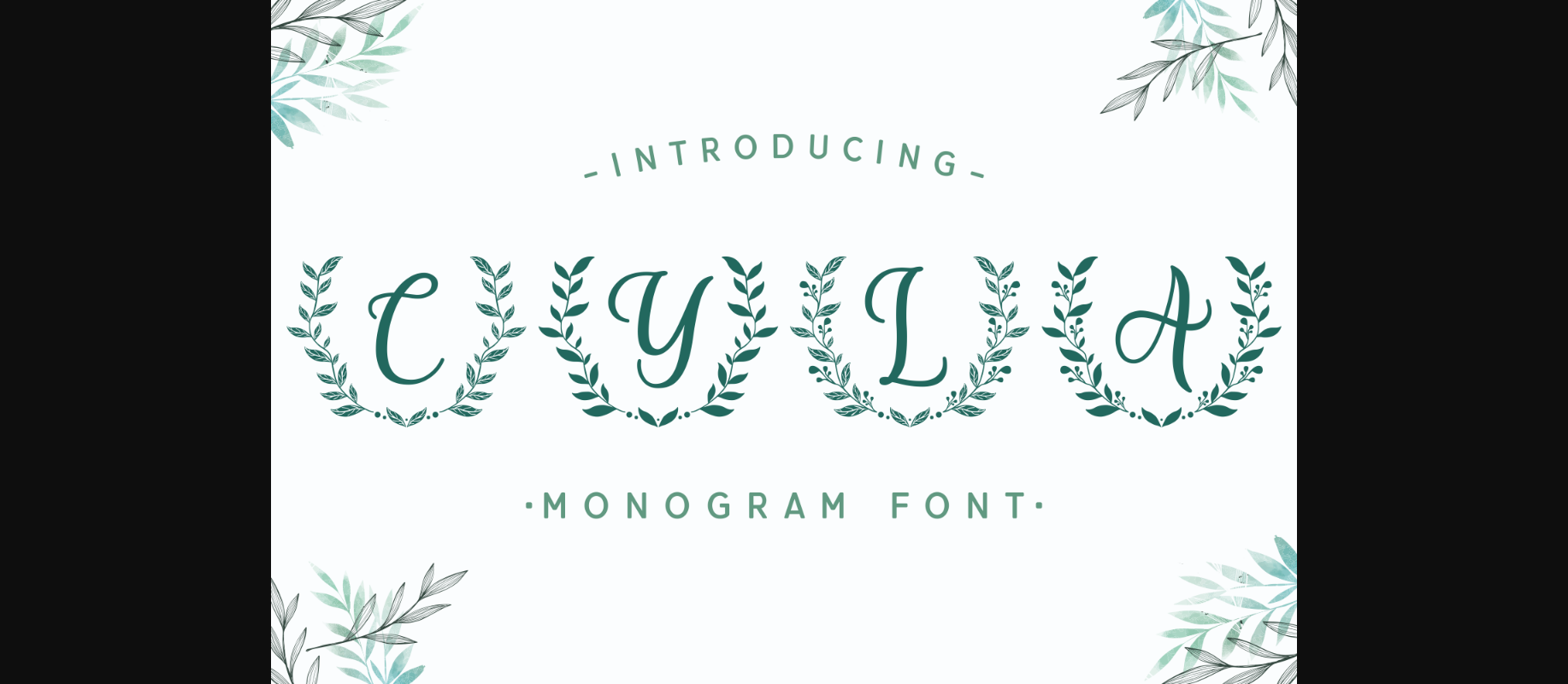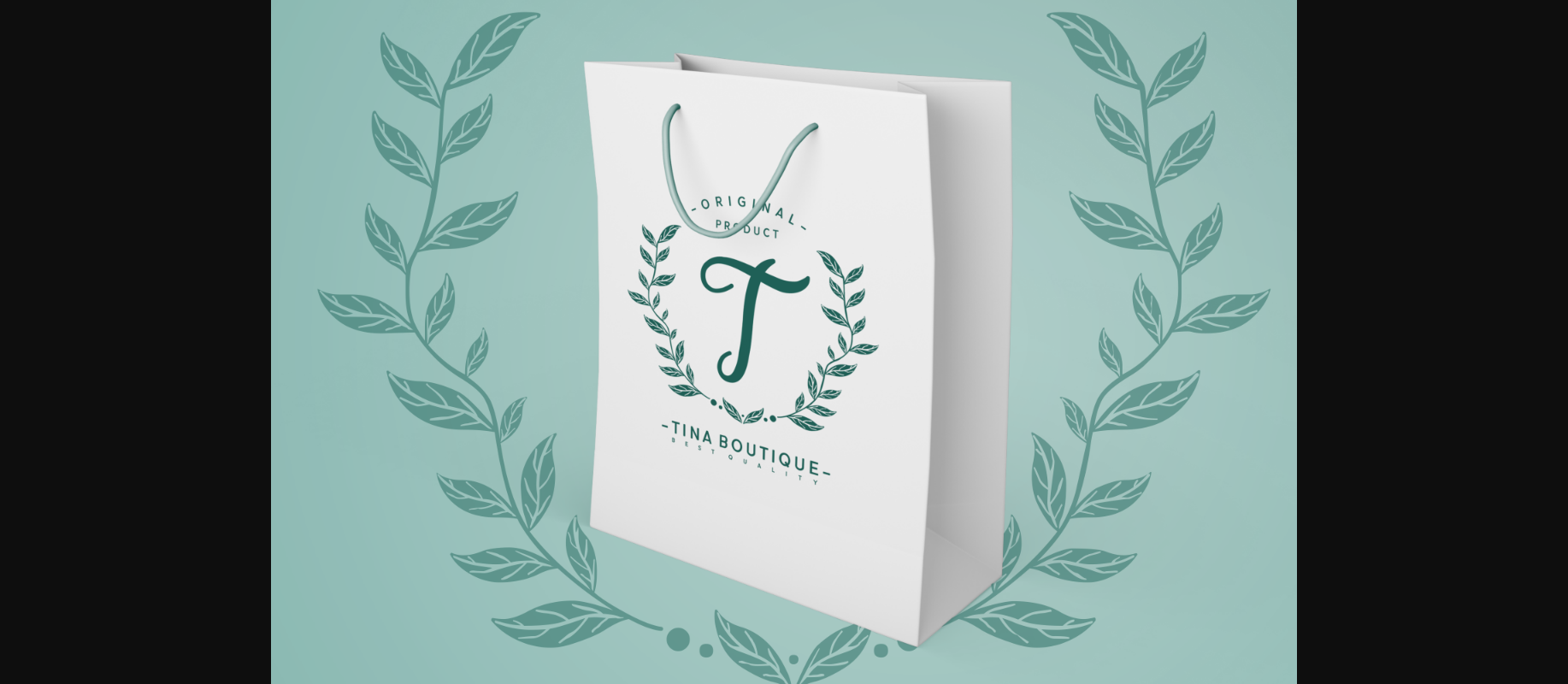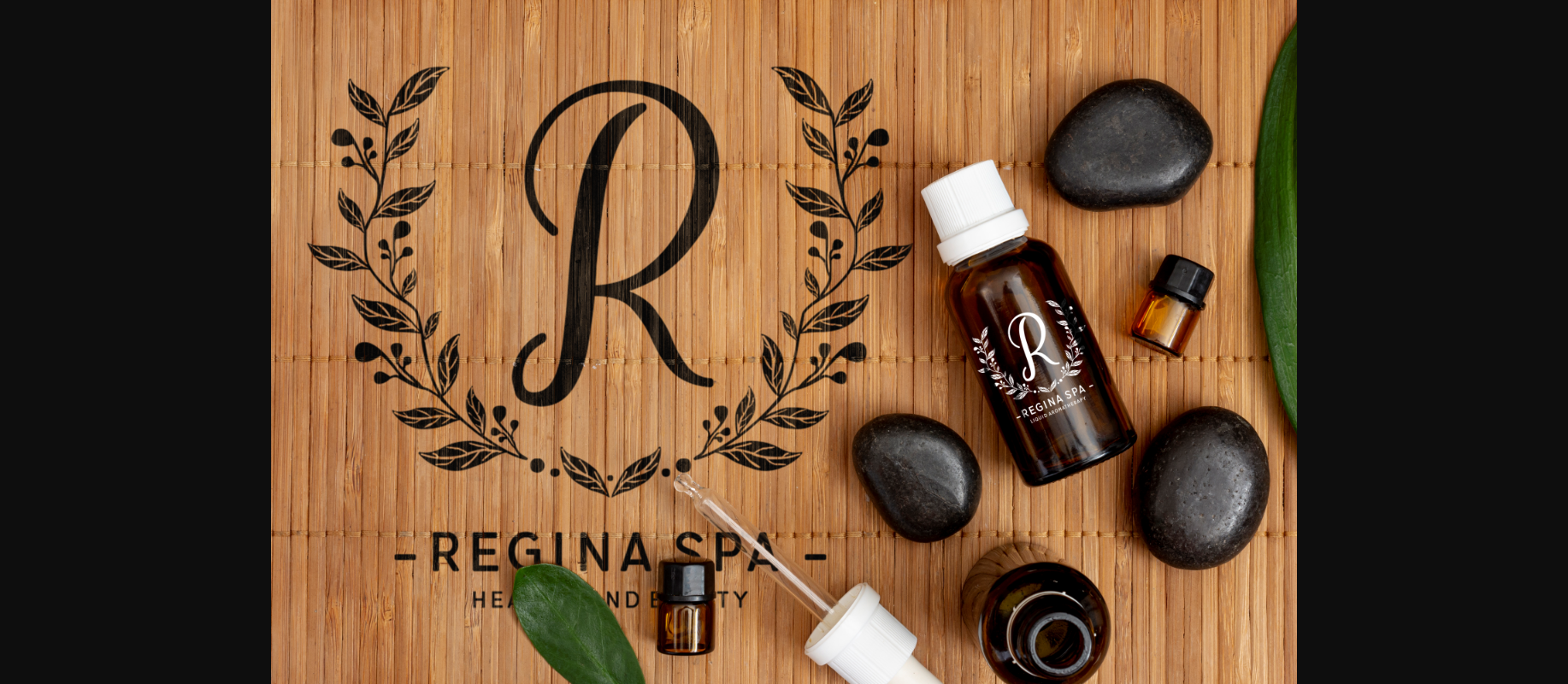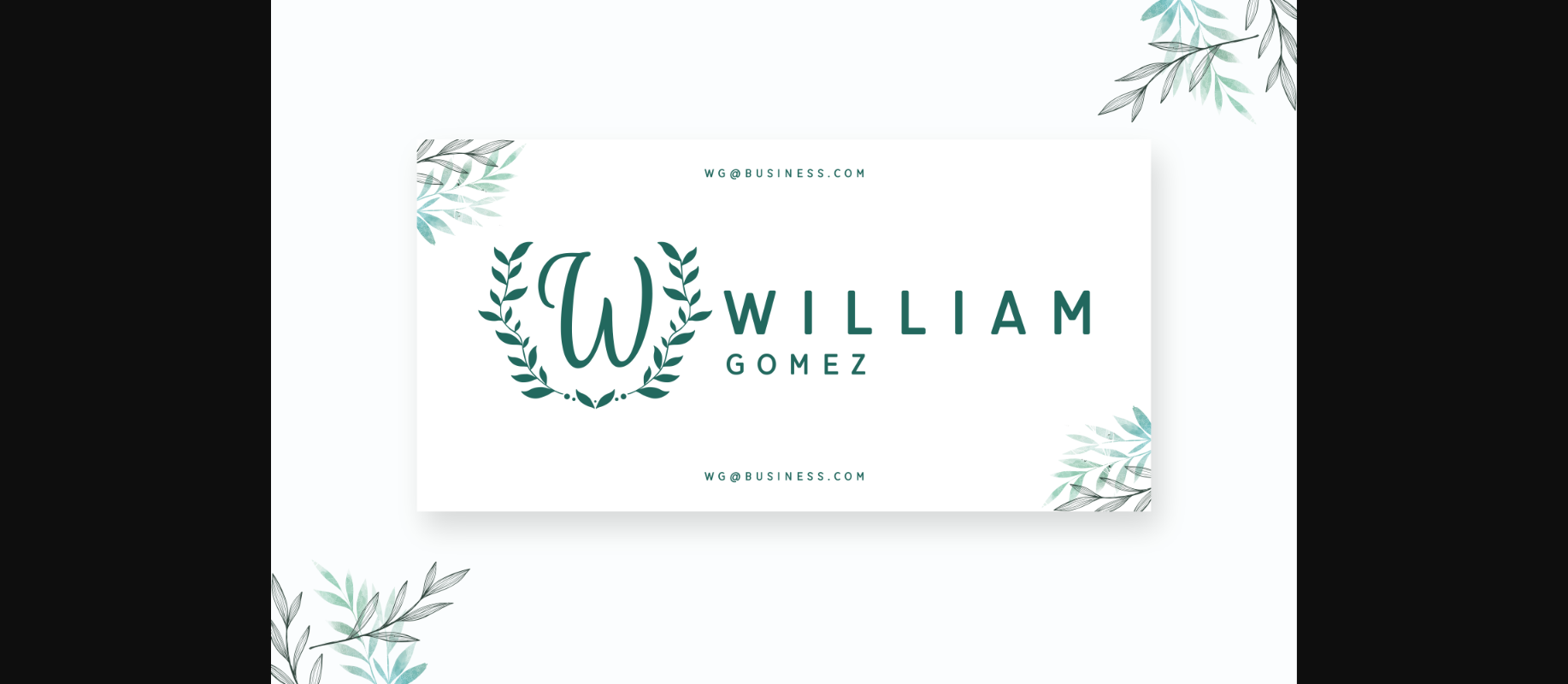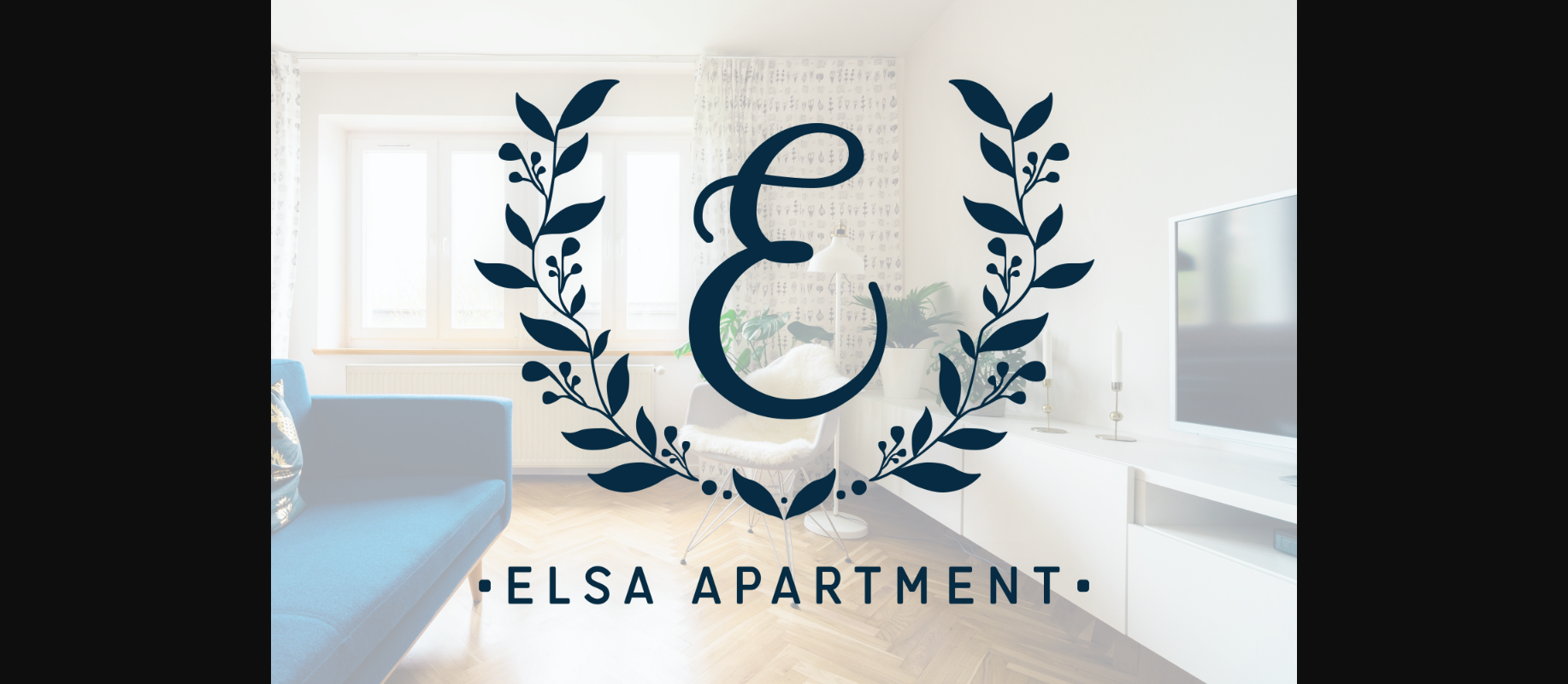
About Cyla Font
Cyla is a gorgeous monogram decorative font that will turn any design project into a standout. It features wonderful botanical wreaths that will add an organic and natural, yet royal feel to your next design project.